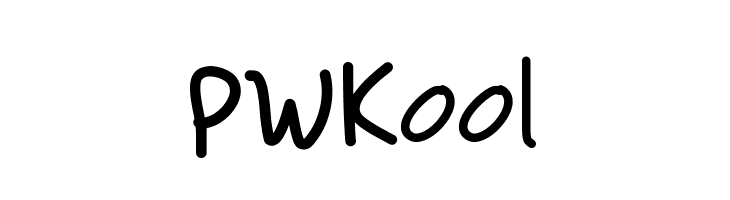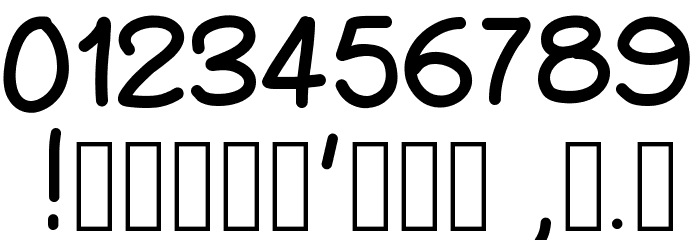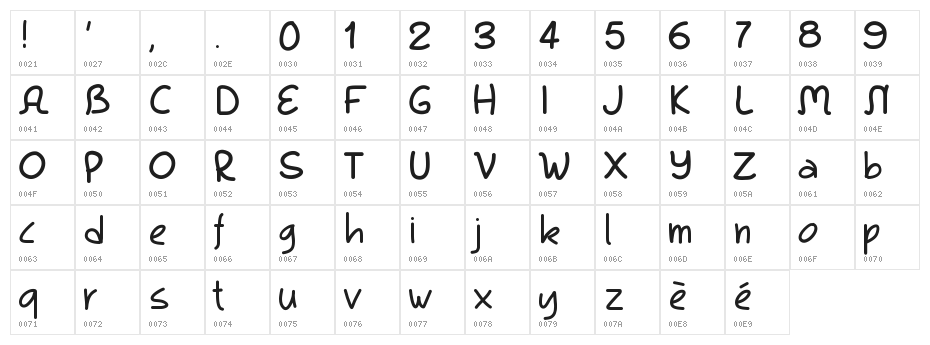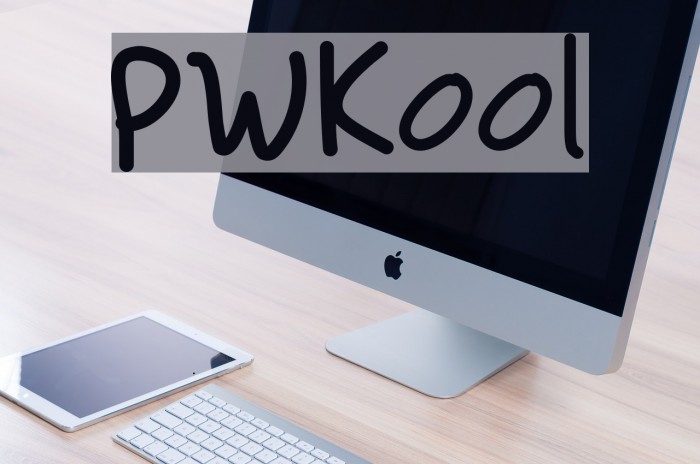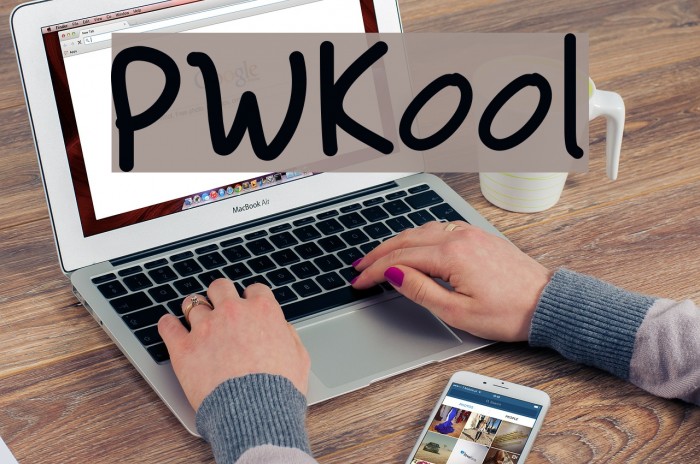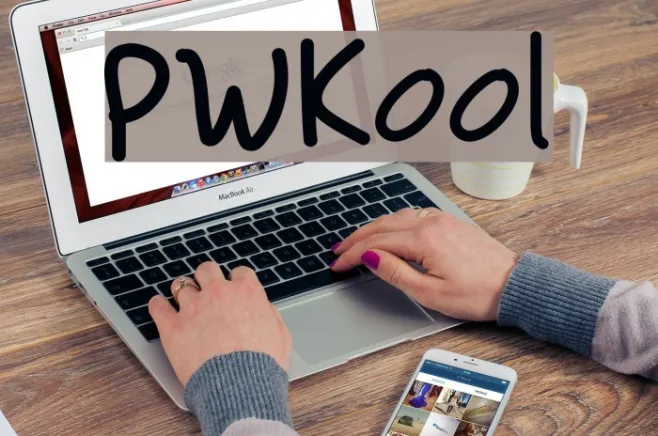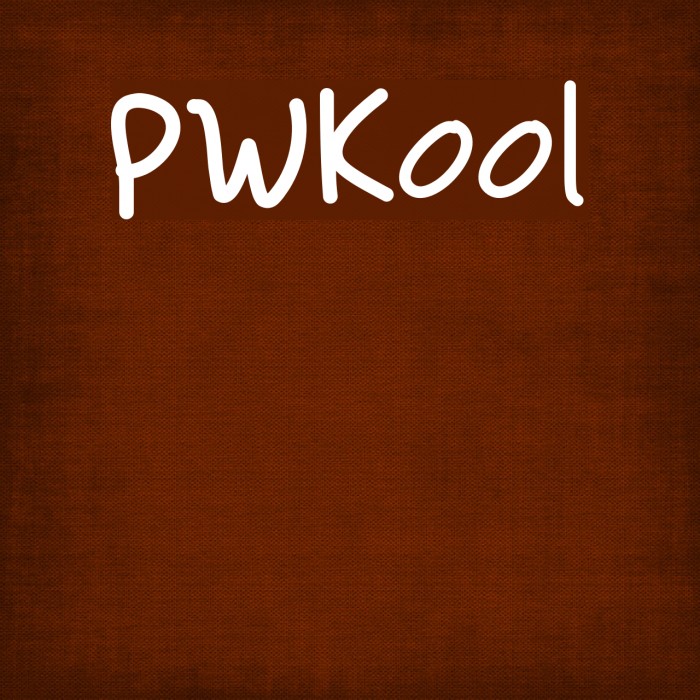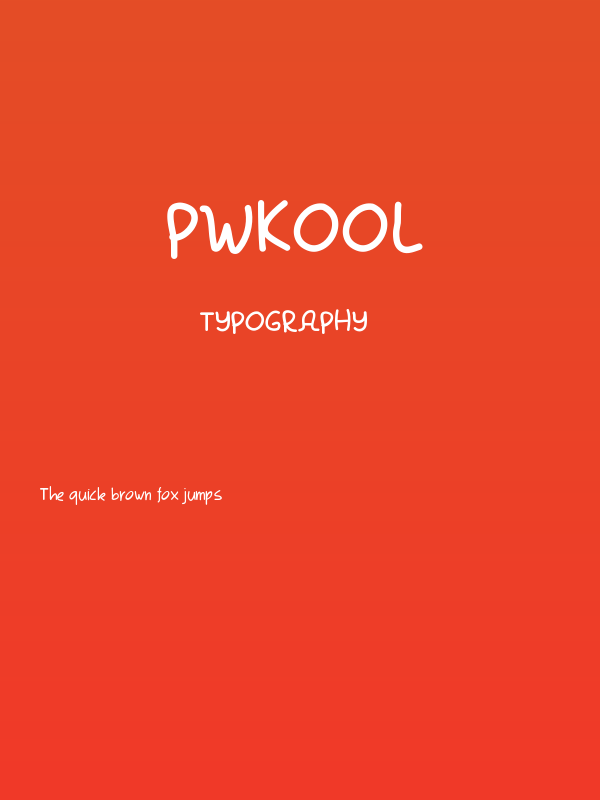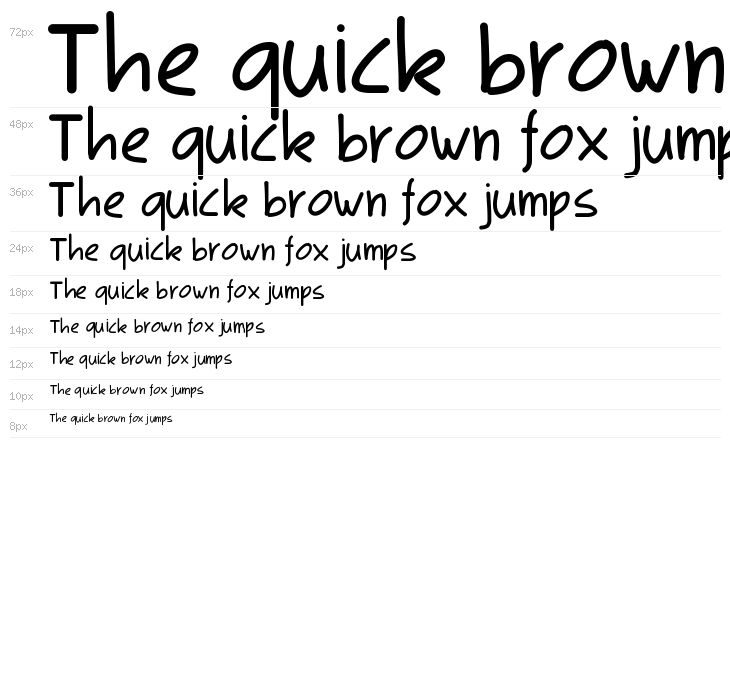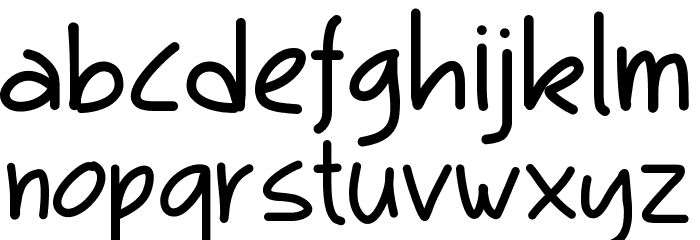
PWKool Font
PWKool Description
This playful and rounded font features a whimsical, handwritten style that exudes a sense of fun and creativity. The characters are bold and slightly irregular, giving them a casual and approachable feel. The uppercase and lowercase letters maintain a consistent flow, with smooth curves and a friendly appearance. The numerals and special characters complement the overall style, making it suitable for projects that require a touch of personality and charm. The font's design is perfect for capturing attention while maintaining readability, making it versatile for various creative applications.
PWKOOL UPPERCASE
PWKOOL LOWERCASE
PWKOOL OTHER CHARS